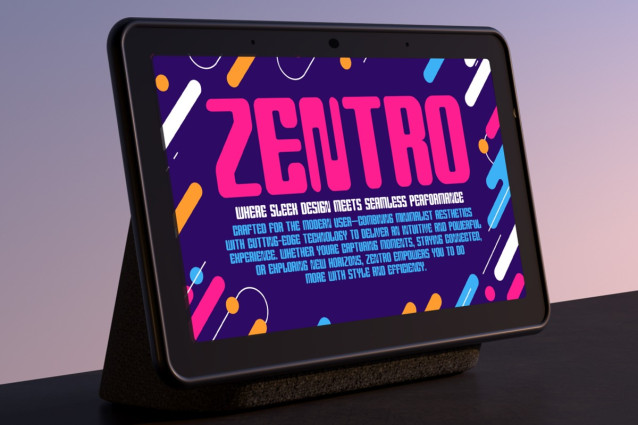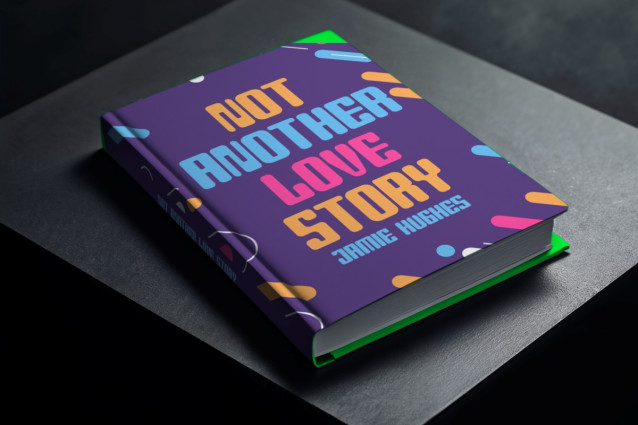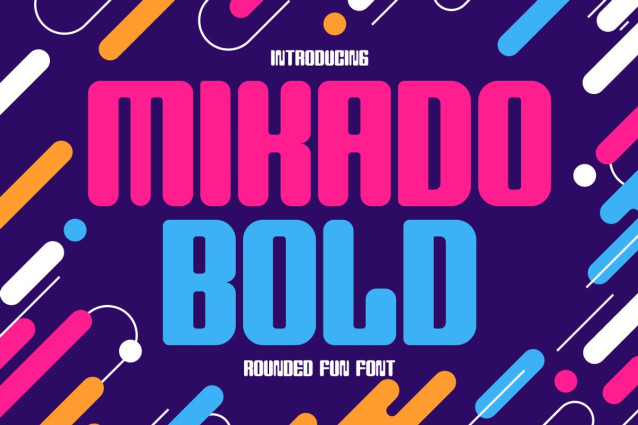
Mikado Bold Font
Mikado Bold Font is a dynamic and modern rounded display font that packs a visual punch with every character. Designed with a playful geometric structure, this font embraces boldness through its thick strokes, soft rounded terminals, and balanced vertical weight. Its eye-catching appearance is perfectly complemented by a vibrant color palette often associated with youth, entertainment, and pop culture. The uppercase letters showcase high legibility and uniform proportions, while the lowercase characters retain a friendly, bubbly charm—making it ideal for both children’s content and contemporary branding. Whether you’re creating logos, posters, packaging, or promotional headlines, Mikado Bold brings the right balance of energy and clarity that resonates with modern design language.
This font’s lively essence is showcased through various mockups—from tech advertising to children’s book covers and cinema posters—demonstrating its adaptability across digital and print formats. Mikado Bold’s strong presence and expressive form make it suitable for applications where attention and fun go hand-in-hand. It includes a full uppercase and lowercase set, numbers, punctuation, and multilingual support. Perfect for startups, creative agencies, or anyone looking to create bold statements with style, Mikado Bold turns ordinary words into colorful expressions. With its confident personality and stylish flair, it’s the go-to choice for standout design projects that demand impact.